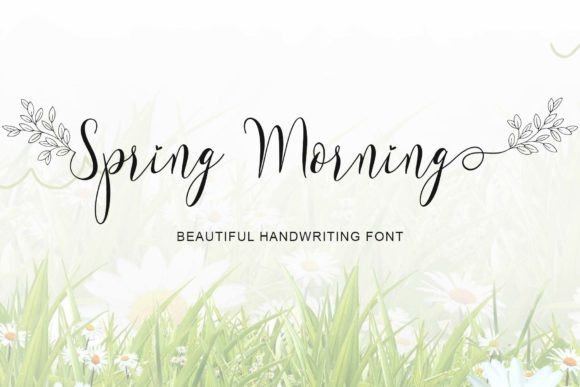
Dive into the captivating world of Spring Morning Font, a script font family that exudes elegance and charm. Crafted by the visionary yogaletter6, this font is a symphony of beauty and functionality, designed to transport you to the heart of springtime.
With its exquisite calligraphy-inspired lines and graceful curves, Spring Morning Font captures the essence of nature's rebirth. Delicate leaves and twigs entwine around each character, adding a touch of whimsy and playfulness that will elevate your designs to new heights.
Whether you're crafting wedding invitations, creating captivating logos, or designing spring-inspired marketing materials, Spring Morning Font is the perfect choice to infuse your projects with a sense of warmth and romance. Its versatility extends far beyond the realm of spring, making it an ideal choice for photography, vacation memories, and holiday greetings.
Unleash your creativity and let Spring Morning Font guide you towards a world of visual enchantment. Its PUA encoding ensures effortless access to a treasure trove of glyphs and swashes, empowering you to add intricate details that will leave a lasting impression.
Step into the realm of Spring Morning Font and embrace the transformative power of nature. Let your designs bloom with beauty, grace, and an enduring sense of magic.